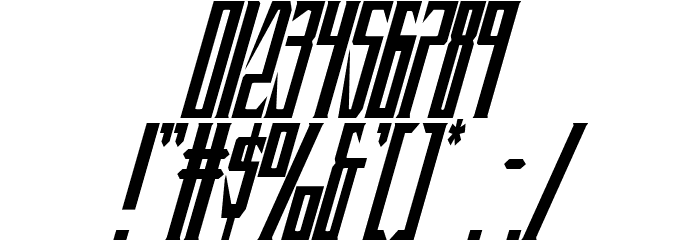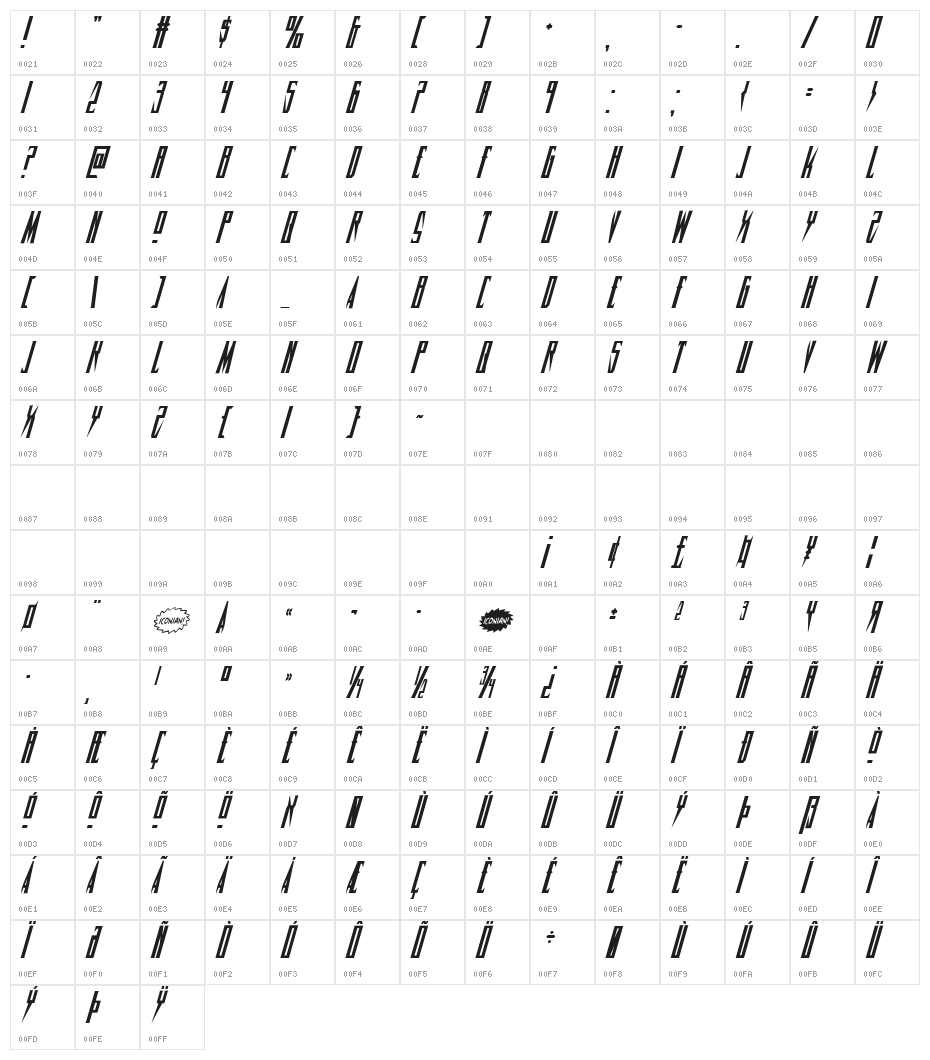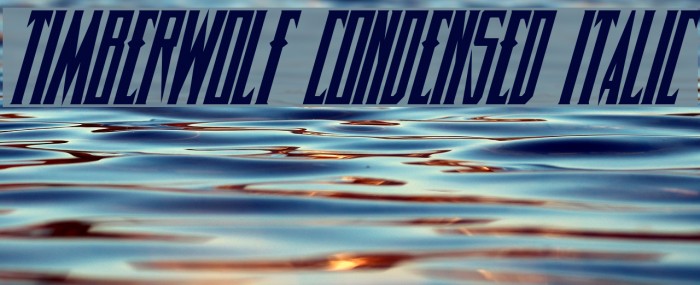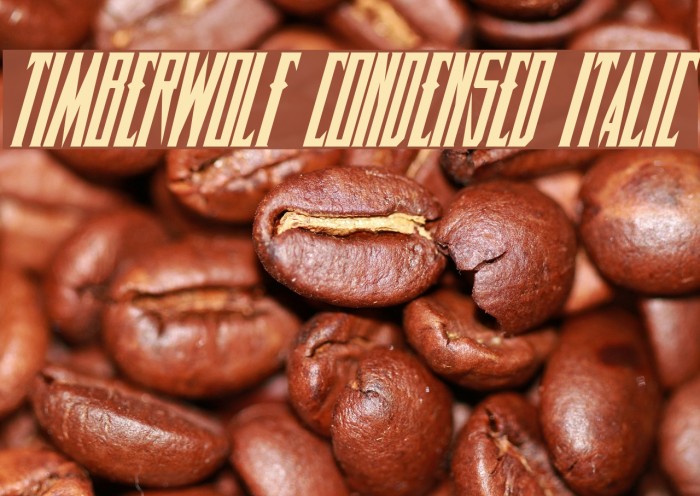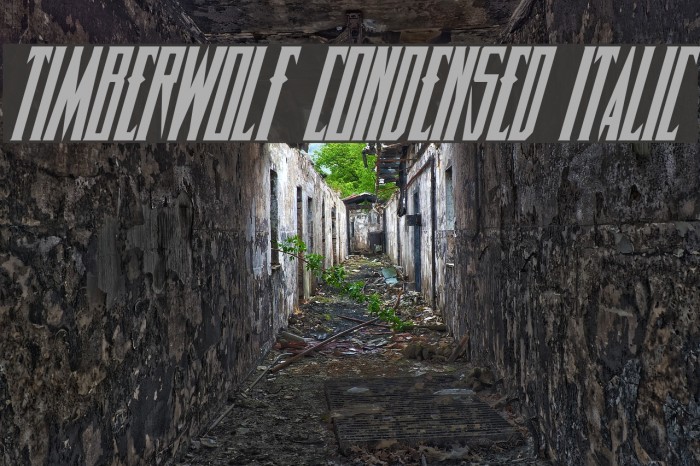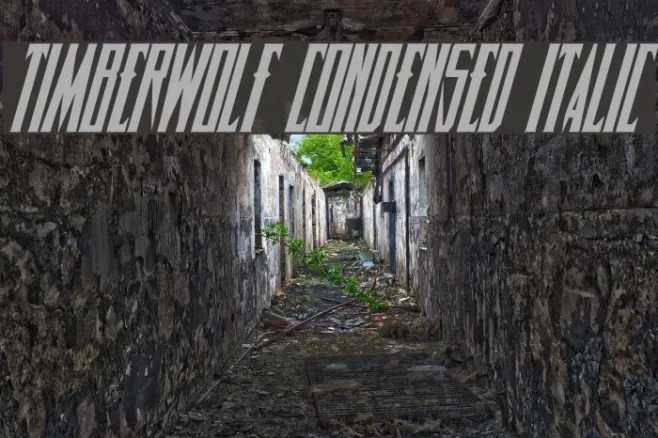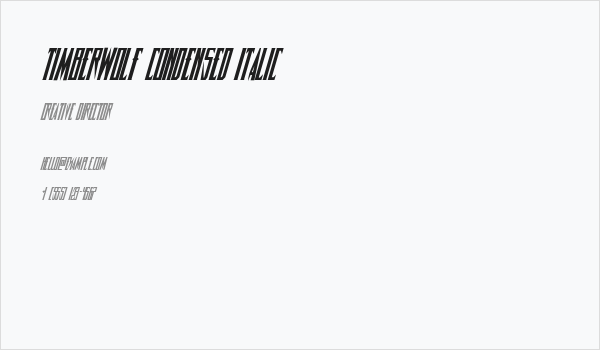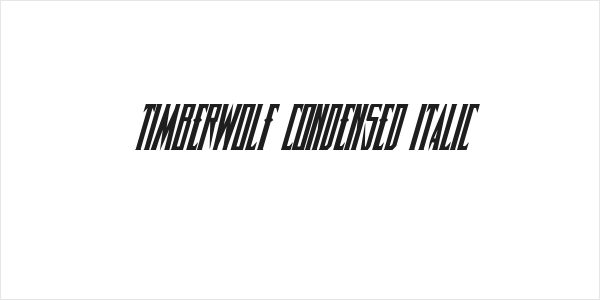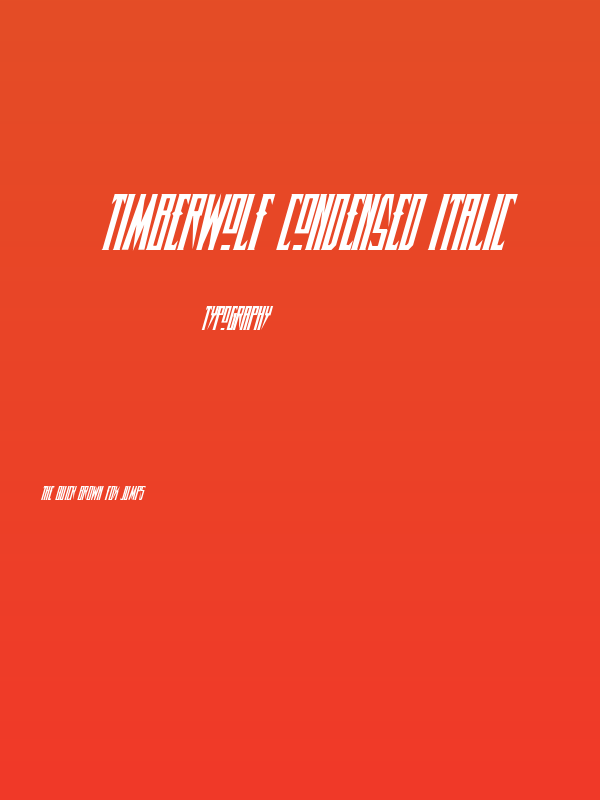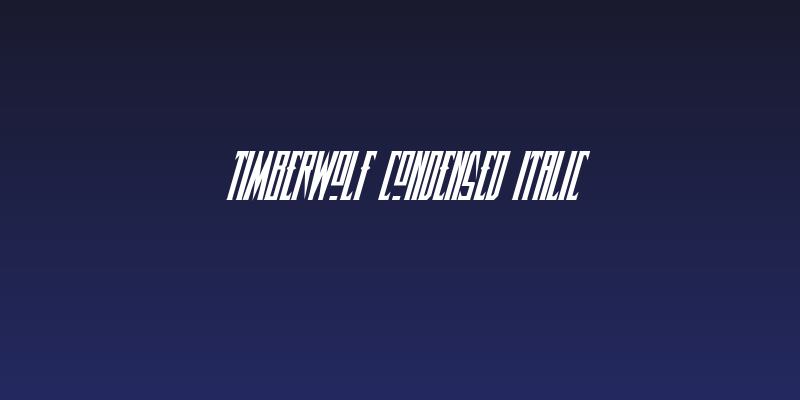
Timberwolf Condensed Italic Font
Timberwolf Condensed Italic Description
This font features a striking, condensed style with a pronounced italic slant, giving it a dynamic and energetic appearance. The characters are elongated and narrow, creating a sleek and modern look. The sharp angles and clean lines contribute to its bold presence, making it ideal for impactful designs. The uppercase and lowercase letters maintain a consistent height, enhancing the uniformity and cohesion of the typeface. The numerals and special characters are designed to match the overall aesthetic, ensuring a harmonious visual experience. This font's unique style makes it suitable for projects that require a strong, attention-grabbing typeface.